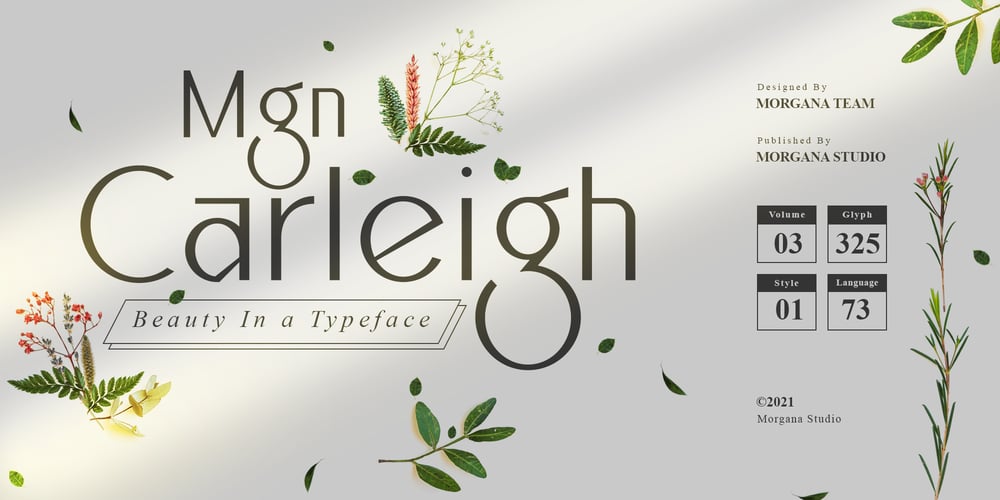
MGN Carleigh
MGN Carleigh font
MGN Carleigh Font Family was designed by Muhamad Masyhuri, Fattah Setiawan and published by Morgana Studio. MGN Carleigh contains 1 styles and family package options. MGN Carleigh is a font that combines strength, beauty, and classic style in a unique and captivating way. The font has a bold and solid appearance, with a strong and commanding presence that makes it perfect for creating titles, headlines, and other prominent text. At the same time, the font has a certain elegance and beauty to it that makes it stand out from other more traditional fonts. Its classic elements give the font a timeless quality, making it suitable for designs that require a touch of vintage or retro feel.The shape of the MGN Carleigh font is both strong and refined, with a unique look that is both distinctive and memorable. The font has a certain energy and intensity to it, with a commanding presence that makes it perfect for use in designs where the text needs to be prominent and powerful. At the same time, the font is also beautiful and sophisticated, with a certain classic charm that makes it a great choice for designs that require a more traditional look. The combination of strength, beauty, and classic style in this font makes it a versatile choice for a wide range of design projects, from modern and edgy to classic and timeless.